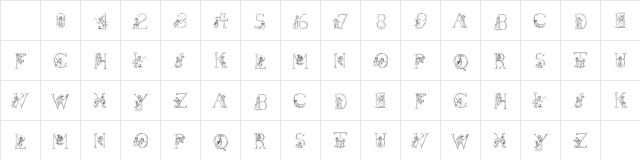
Complete KateGreenawaysAlphabet Medium glyph index. Displaying only characters natively supported by KateGreenawaysAlphabet Medium font.
KateGreenawaysAlphabet is a composed and adaptable typeface that performs quietly and consistently across a wide range of design contexts.
Who designed the KateGreenawaysAlphabet Medium font?
This font was published by Gert Wiescher, Wiescher-Design, Munich, Germany. Check the technical specs section for copyright and designer details.